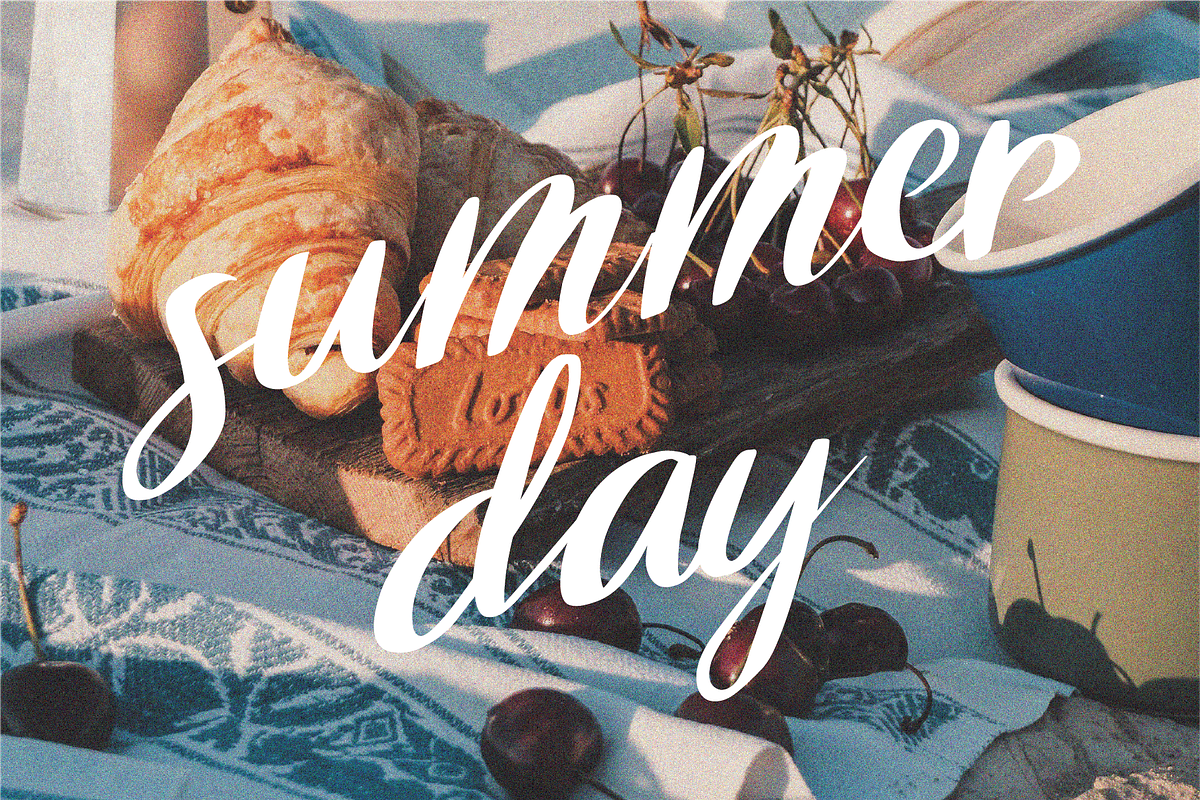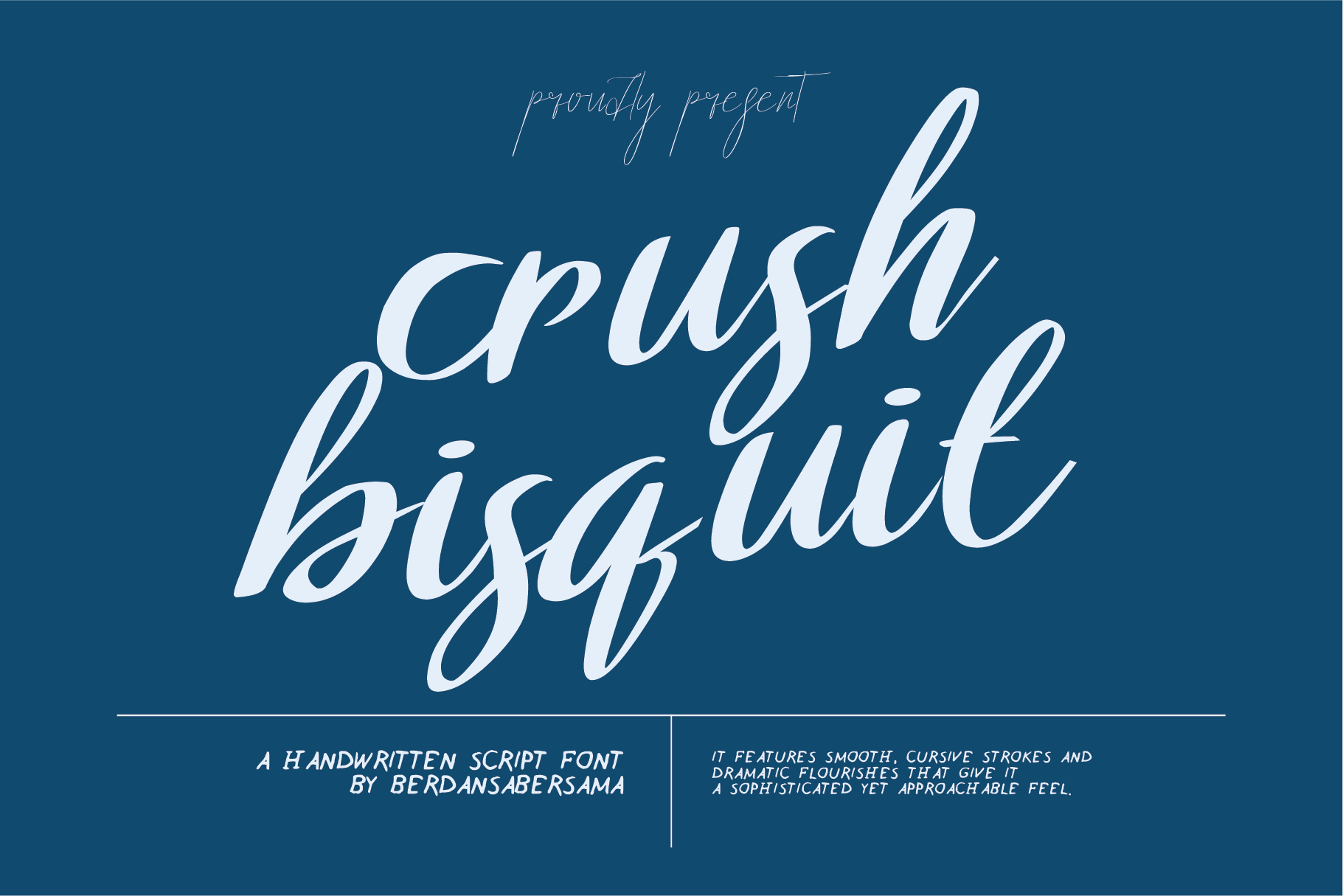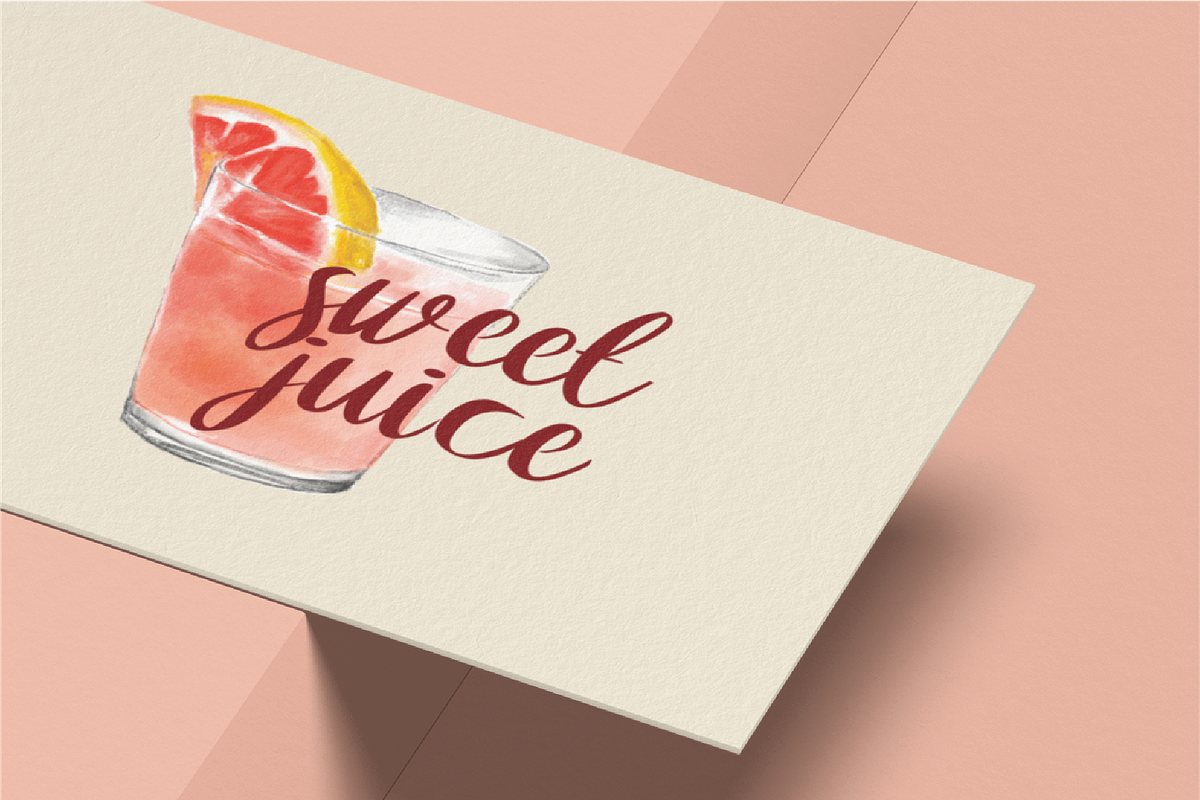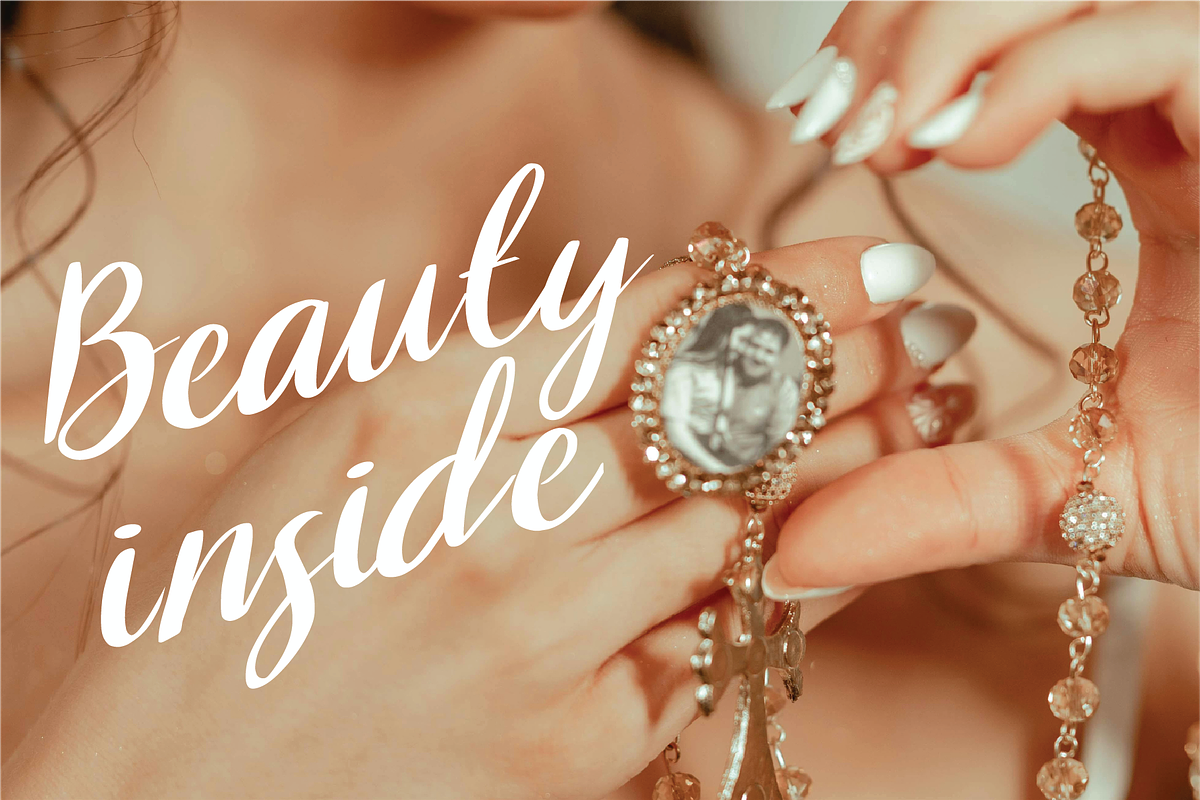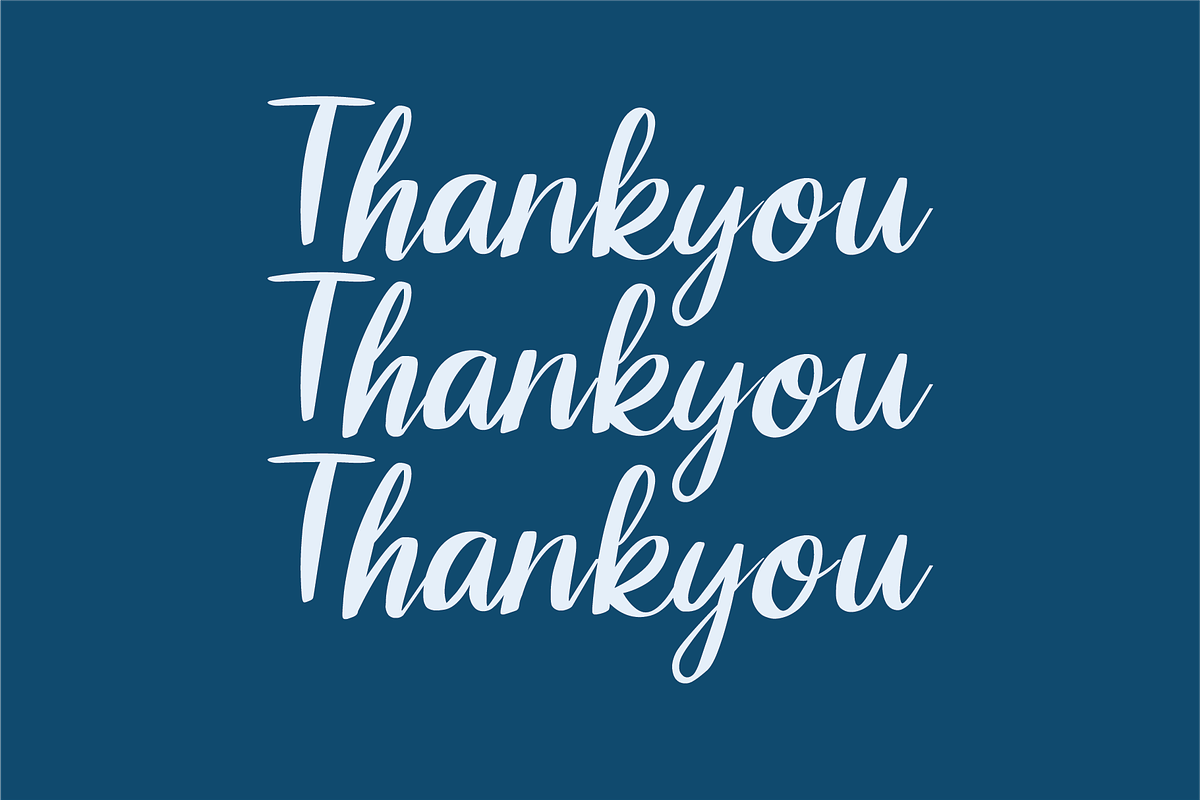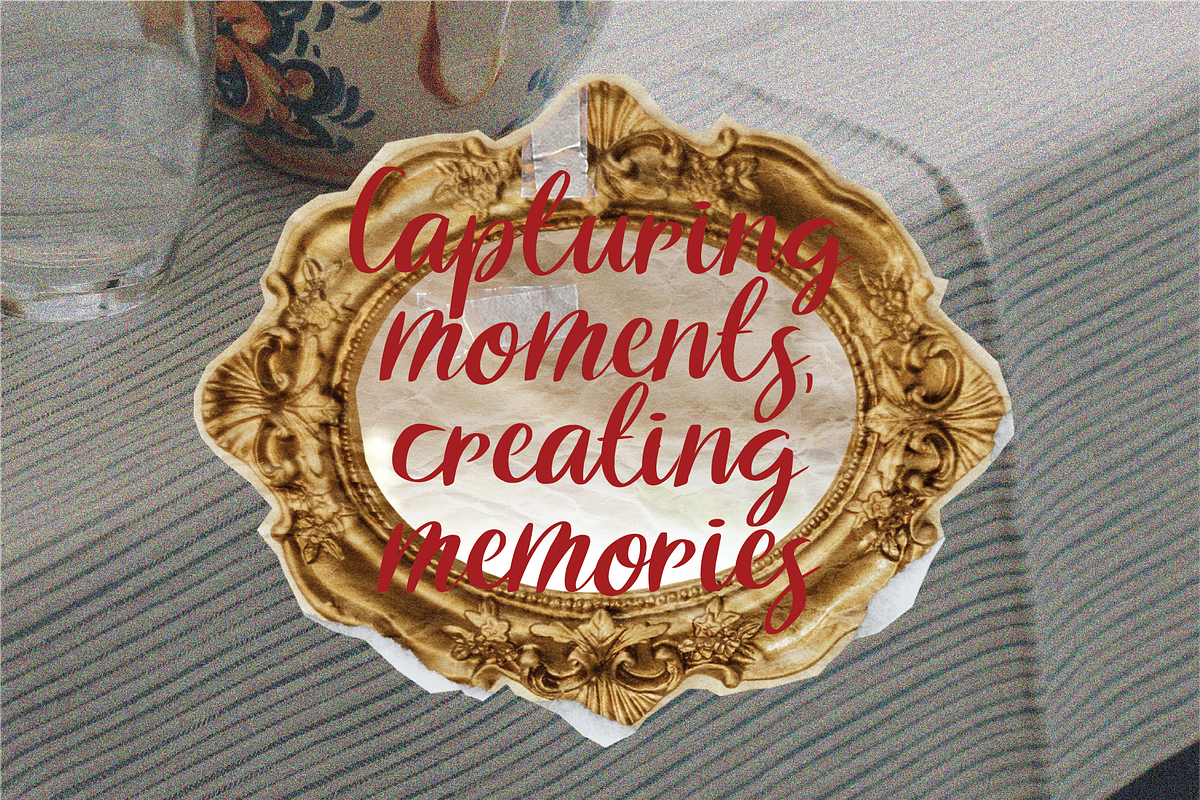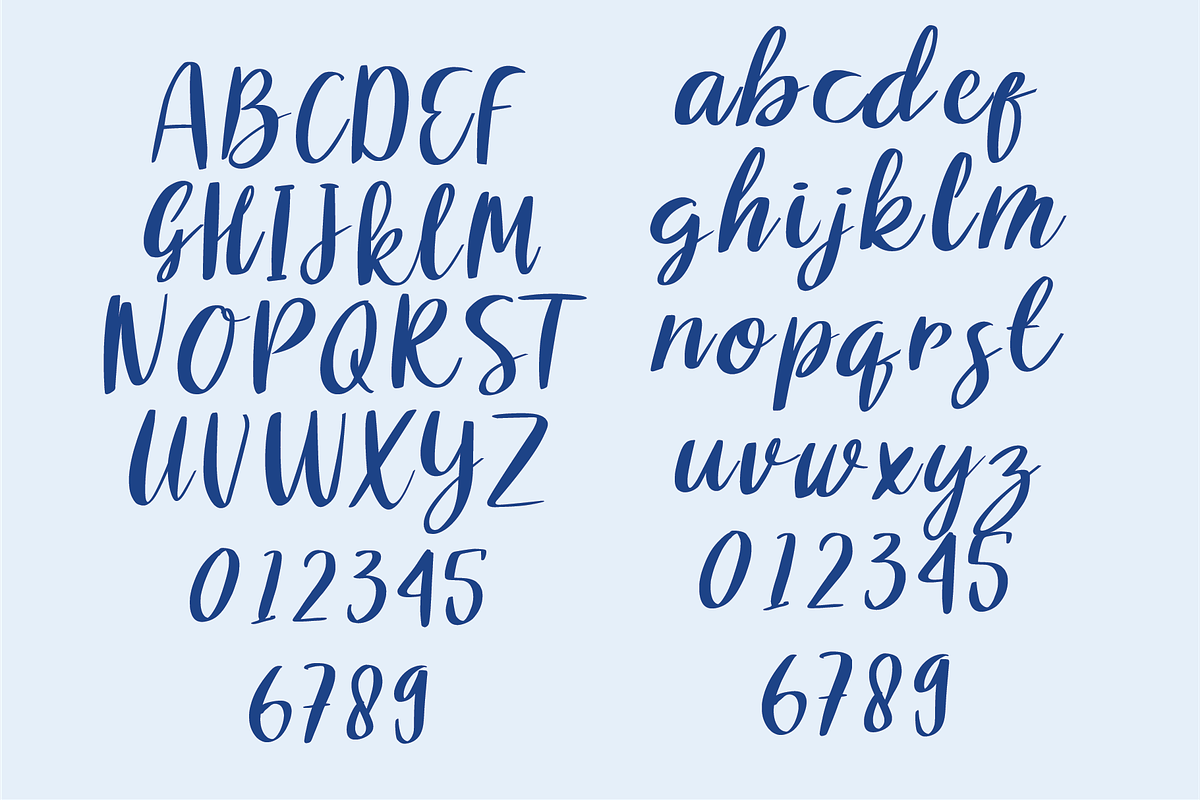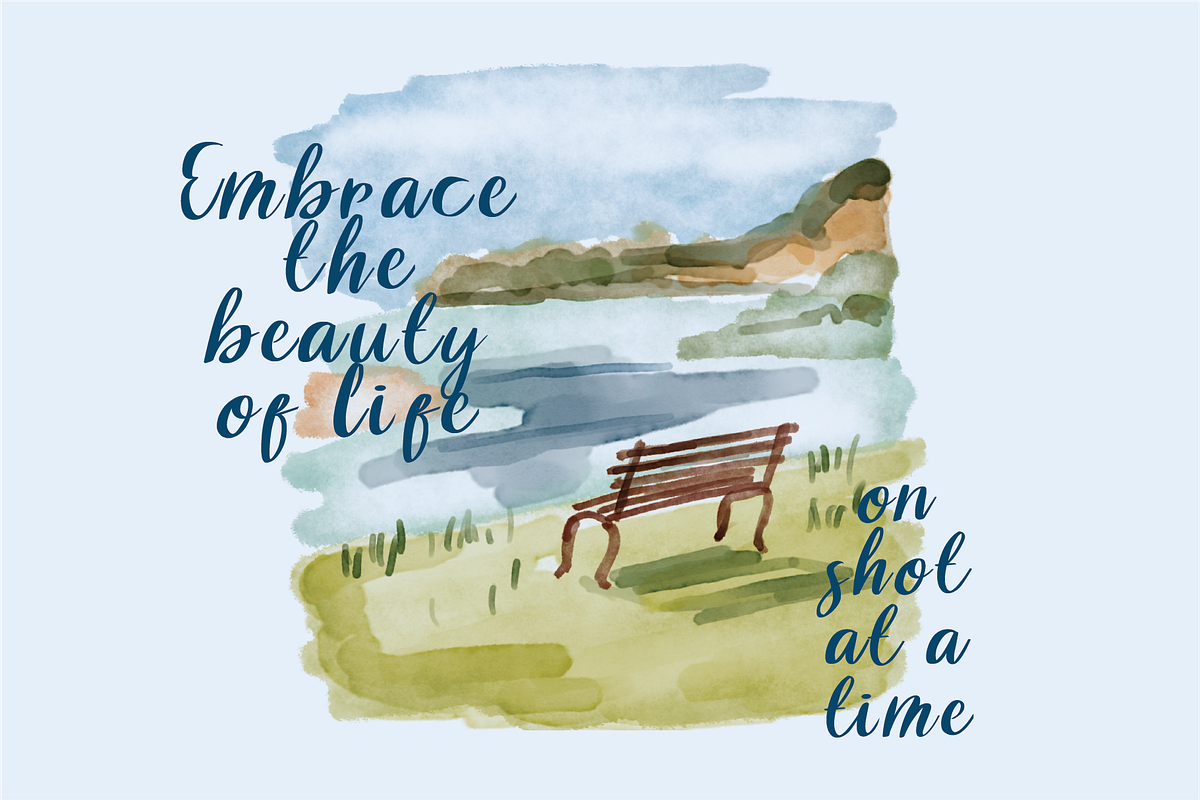
Crush Bisquit Script font
Crush Bisquit is a modern brush script font with a smooth, flowing stroke and a naturally hand-painted look. Its bold curves and soft edges give it a sense of warmth, creativity, and expressive motion. Each letter flows into the next with a gentle rhythm, making the text feel alive and dynamic.
- Numbers, marks and symbols